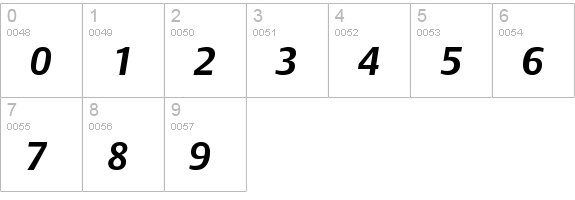
DTLArgoT-BoldItalic Font Details
The DTLArgoT-BoldItalic font is a stylish and elegant typeface that exudes sophistication and modernity. Its bold and italic design adds a touch of flair to any project, making it perfect for headlines, titles, and other attention-grabbing text. This versatile font is suitable for a wide range of design applications, from print materials to digital projects. What's even better is that the DTLArgoT-BoldItalic font is available for free download at FontsMarket.com. This means you can easily access this high-quality typeface without any cost, allowing you to elevate your design work without breaking the bank. Don't miss out on the opportunity to add this beautiful font to your collection today!